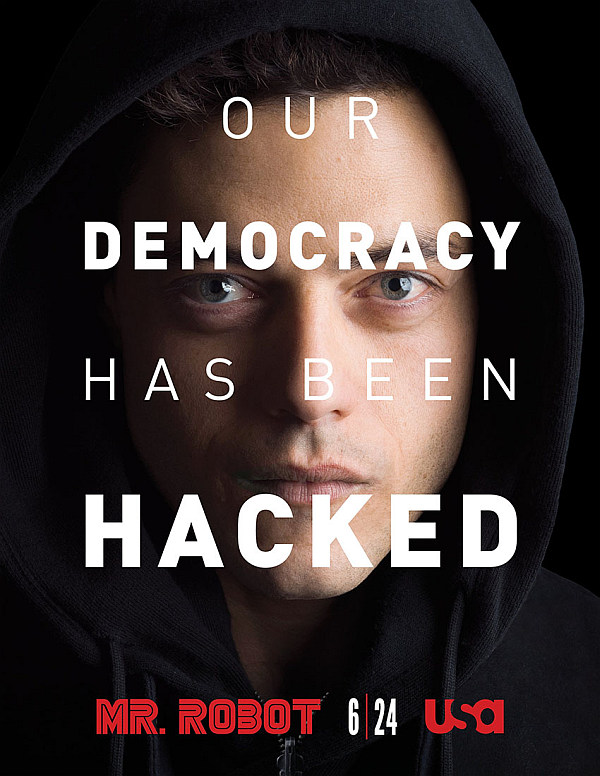
Mr. Robot (TV Show) Font
Fonts in UseMr. Robot is a critically acclaimed television series created by Sam Esmail. It follows a mentally unstable computer programmer named Elliot Alderson as he gets caught up in a dangerous hacking group's plans to bring down corporate America.
The title Mr. Robot on the poster features the tagline "Our Democracy Has Been Hacked" in the bold and impactful Din Black font. The show's logo bears resemblance to the fanmade font called Mr. Robot, which can be downloaded for free from the Fonts Used Section.